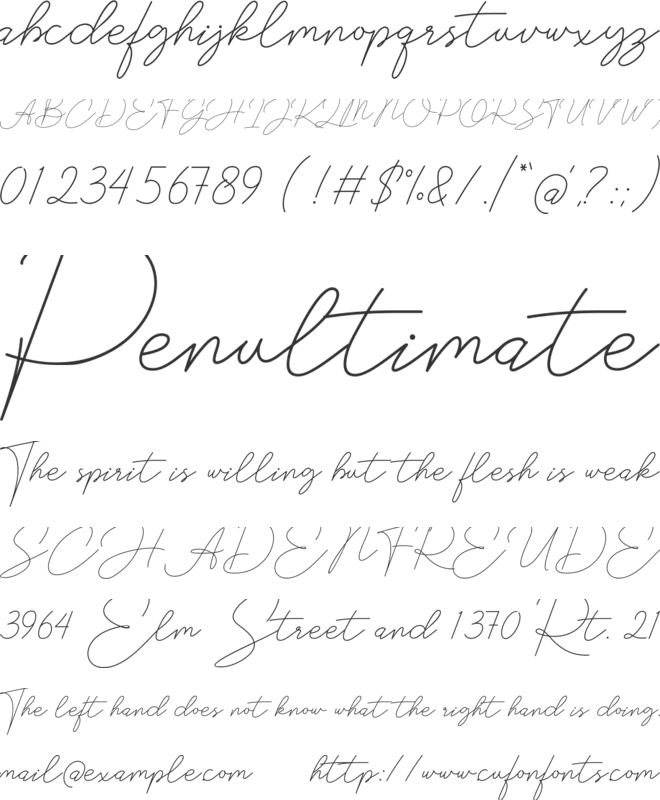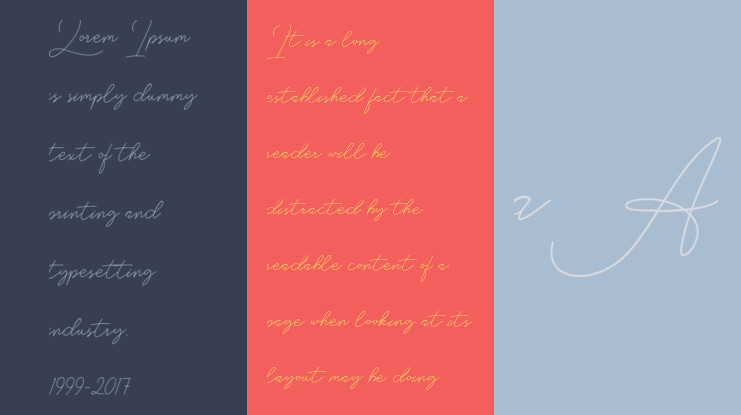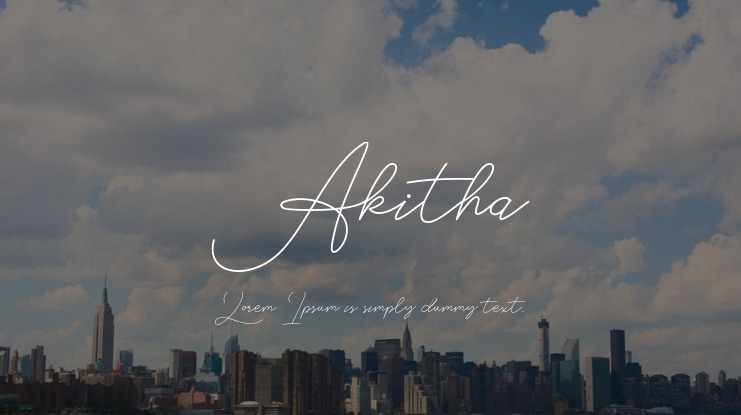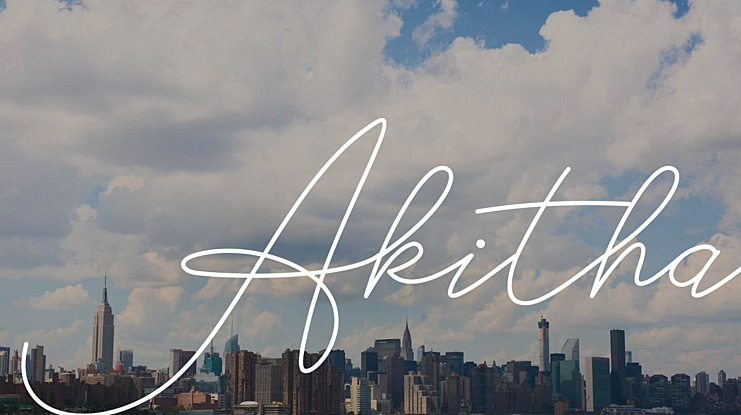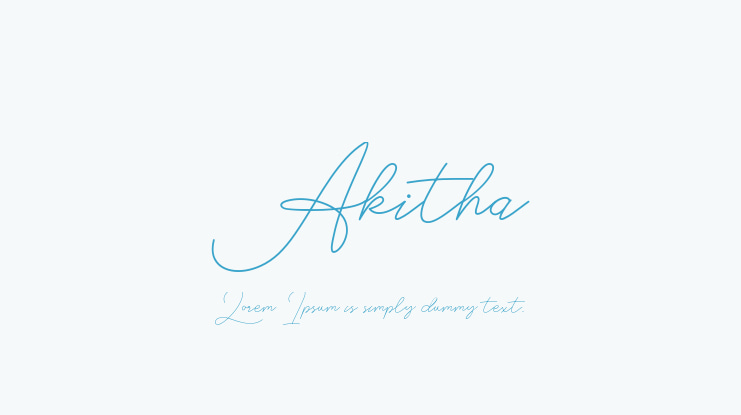
Akitha Font
Akitha is a smooth, elegant and stylish handwritten font. It has a beautiful and balanced character and as a result, fits into a wide set of designs. Such as company logos, business cards, book titles, brand names, and others.Its stylish alternations and ligatures make this font the perfect partner for any project.